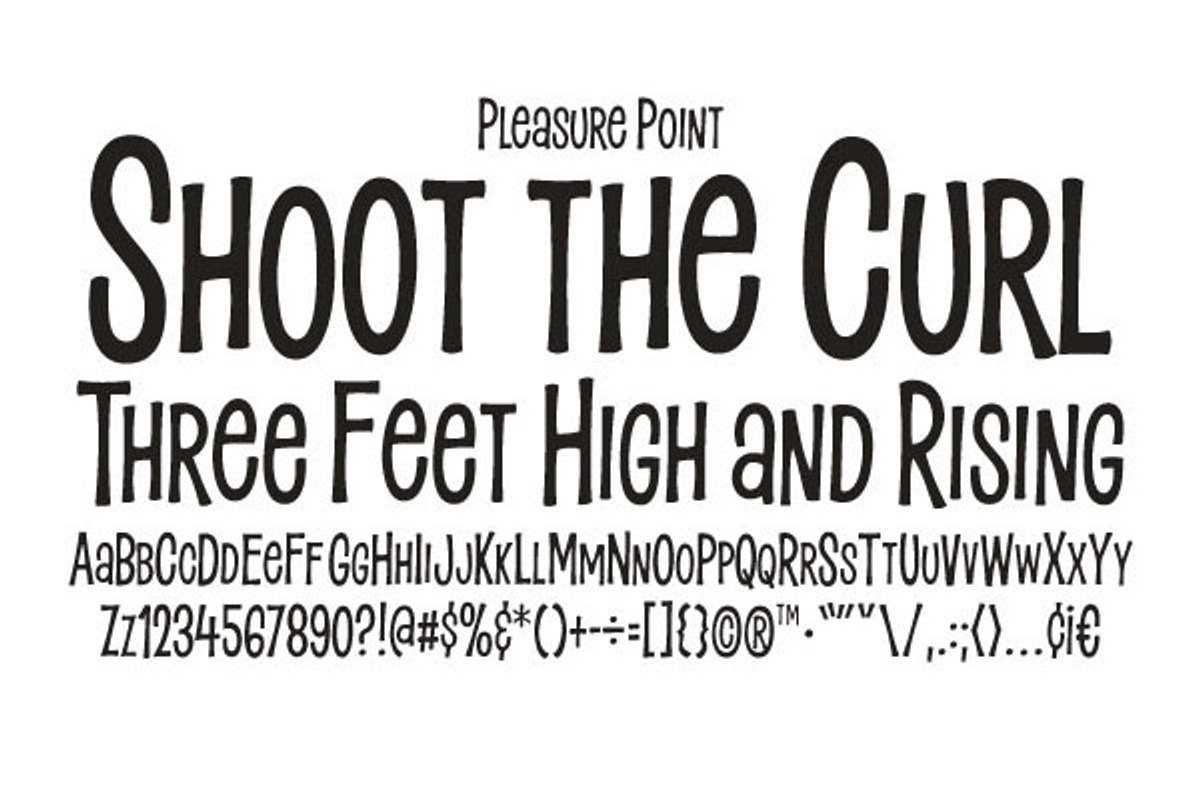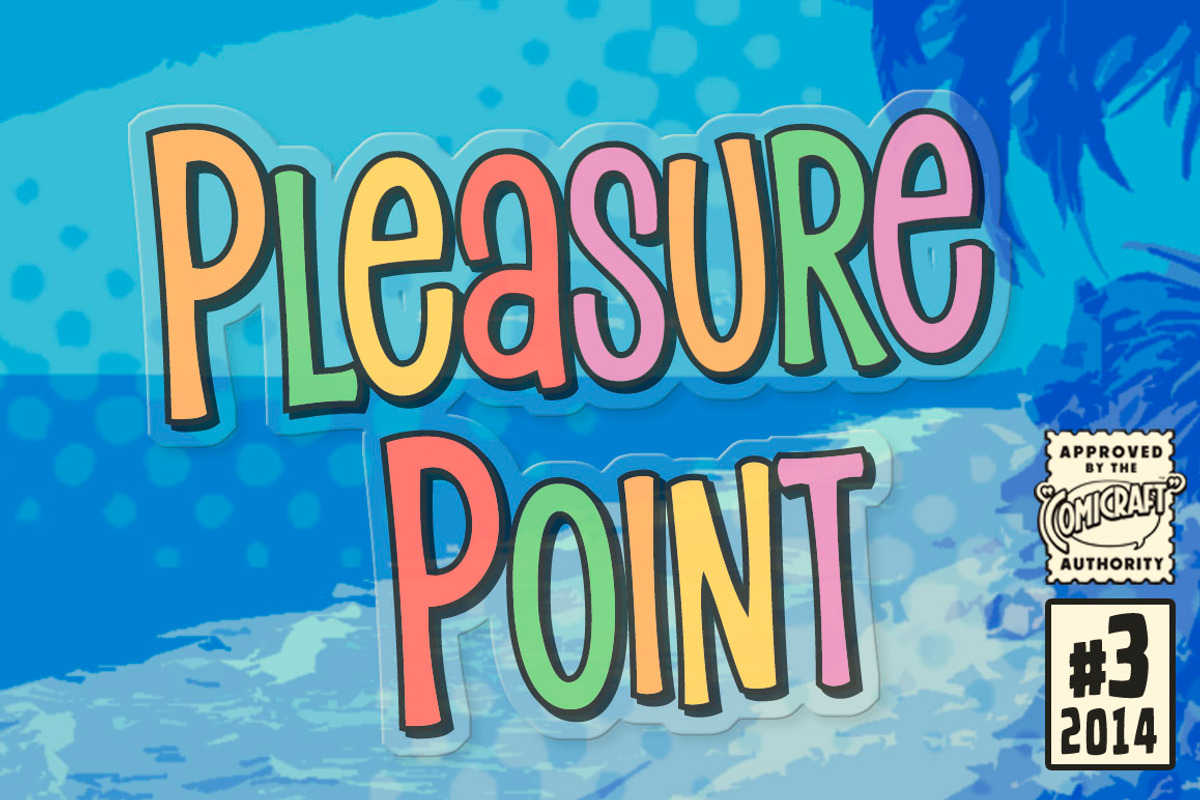
Pleasure Point
Pleasure Point by Comicraft Fonts is a font selected for branding, posters, packaging, typography.
Pleasure Point by Comicraft Fonts fits naturally into Branding, posters, packaging, typography.